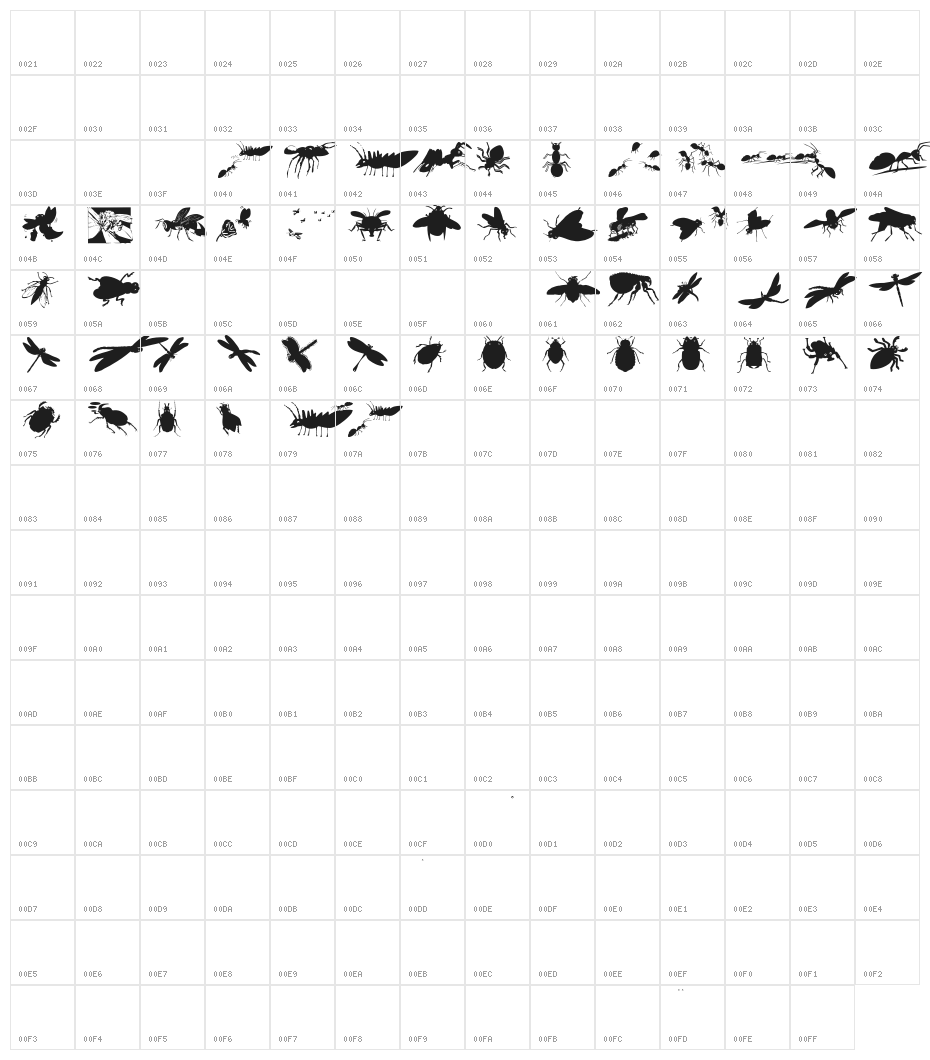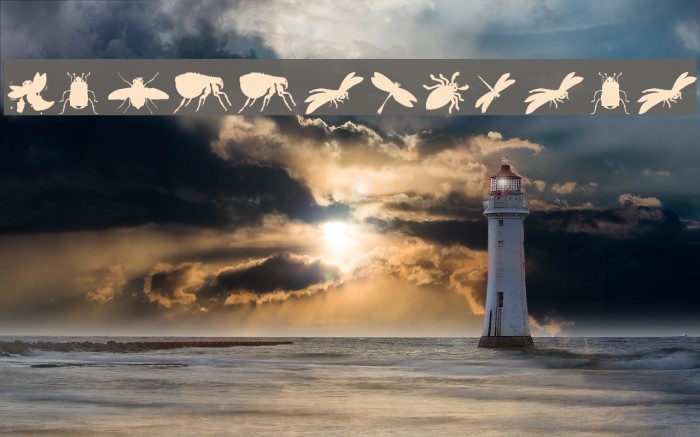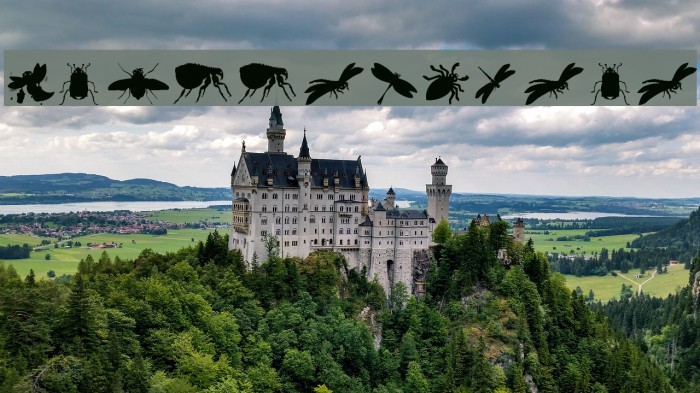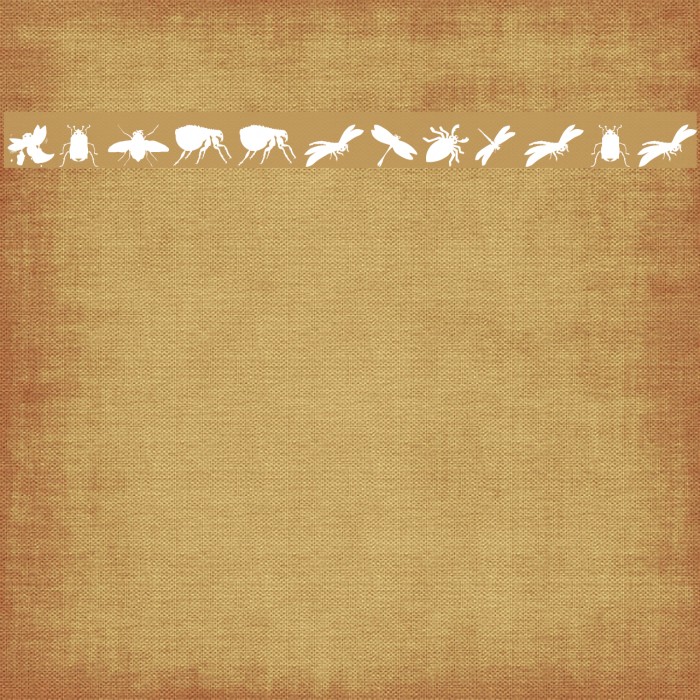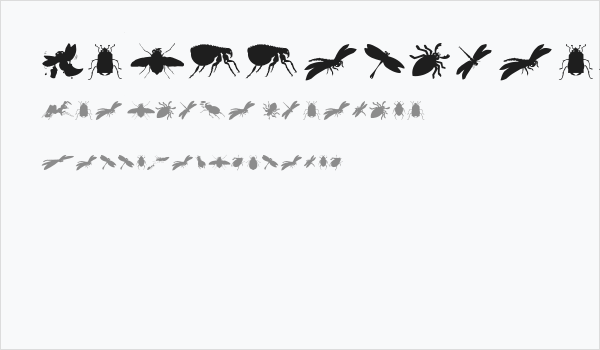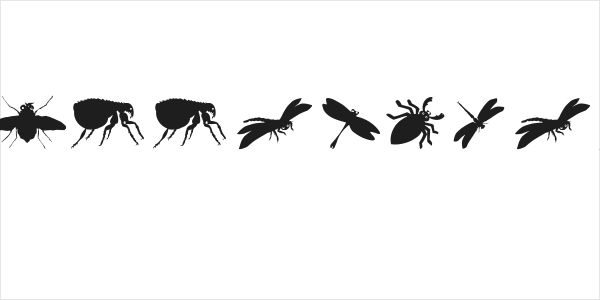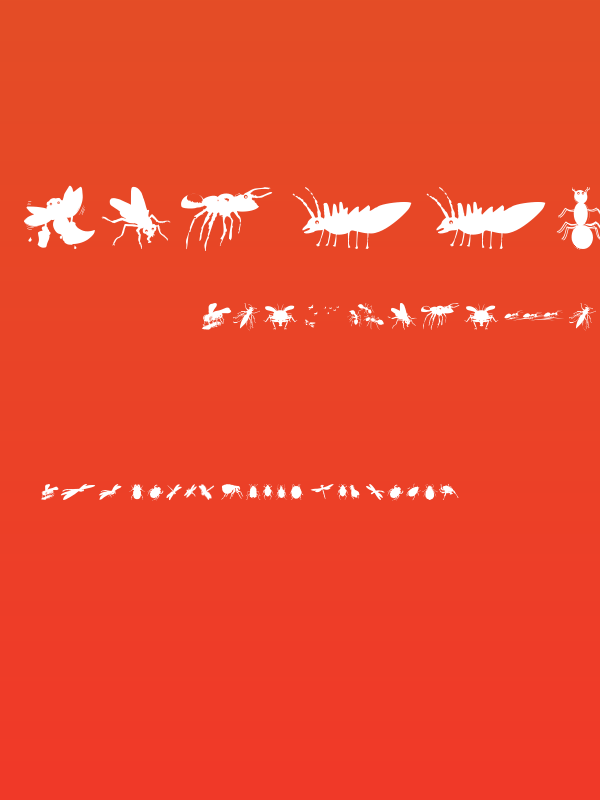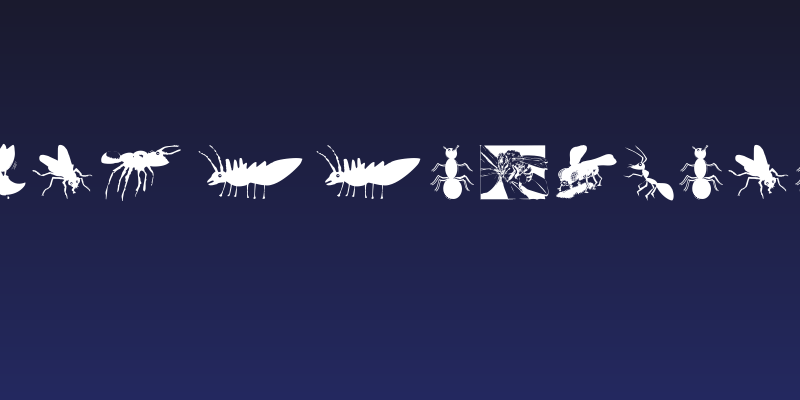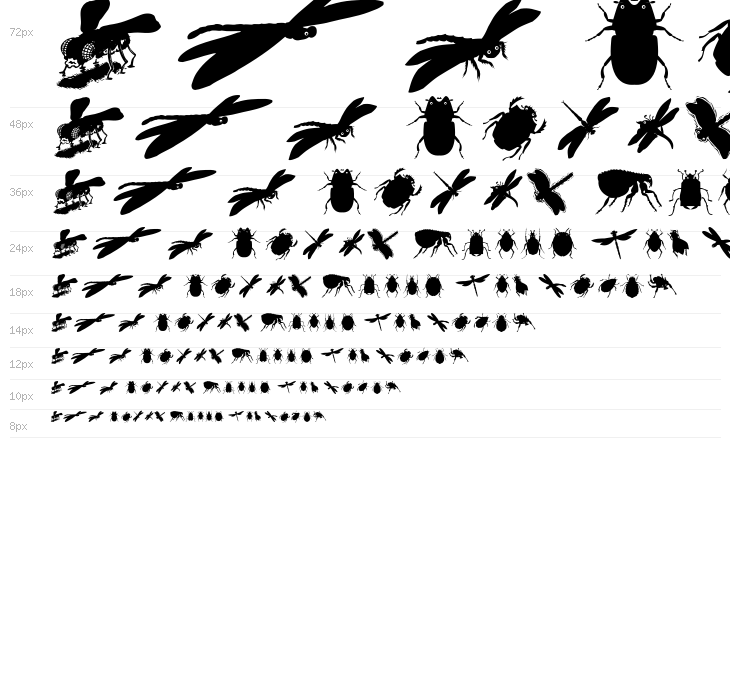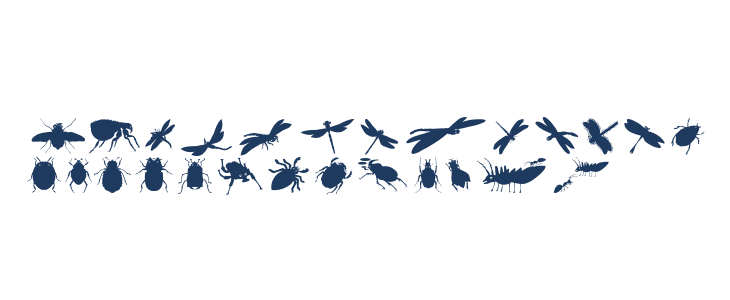
Krabbeltiere Font
Krabbeltiere Description
A collection of black silhouette illustrations depicting various insects and small creatures, each glyph representing a different species or pose, with high detail and playful, organic shapes.
| Overall Style | Decorative, Playful, Organic |
| Use Case | Icons, Decorative elements, Themed graphics |
| Proposed Projects | Children's books, educational materials, nature-themed posters, scrapbooking, decorative borders. |